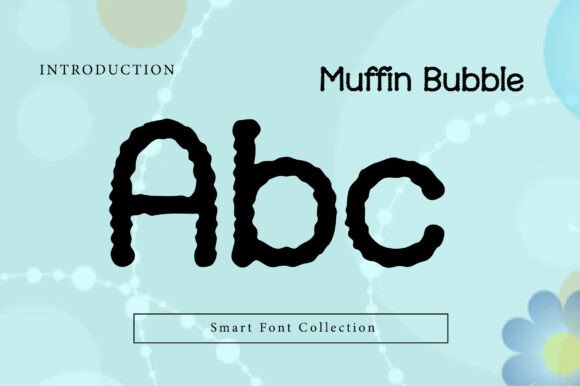
Introduction to Muffin Bubble Font
Add a soft, delicious touch to your creative projects with the Muffin Bubble font, a standout member of the Smart Font Collection.
This Muffin Bubble typeface features thick, rounded letterforms with a playful, irregular texture that mimics the soft edges of freshly baked treats It is an exceptional choice for food packaging, bakery branding, and childrenโs book titles where a warm, approachable, and โyummyโ aesthetic is required to capture attention.
Key Features of Muffin Bubble Font
Why Choose Muffin Bubble Font?
Muffin Bubble Font offers exceptional quality and versatility, making it a valuable addition to your design toolkit. Whether you’re creating for personal projects or commercial use, Muffin Bubble Font delivers professional results.